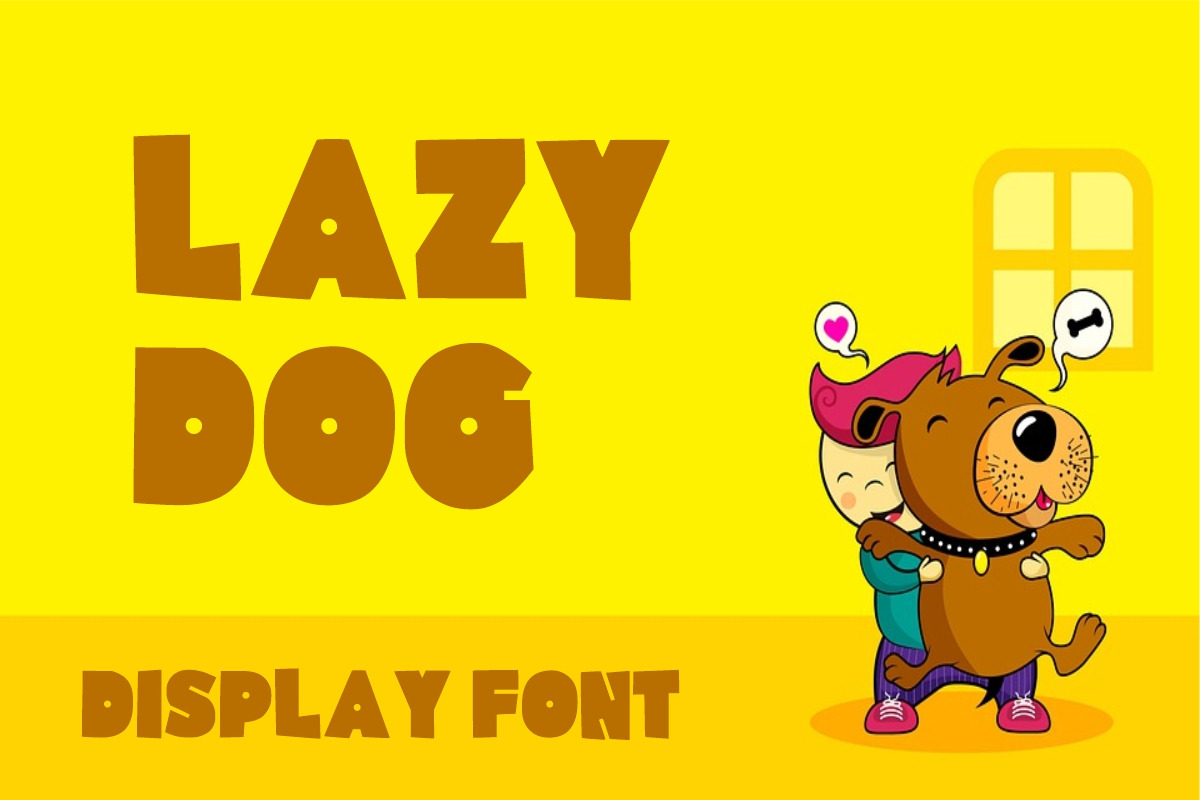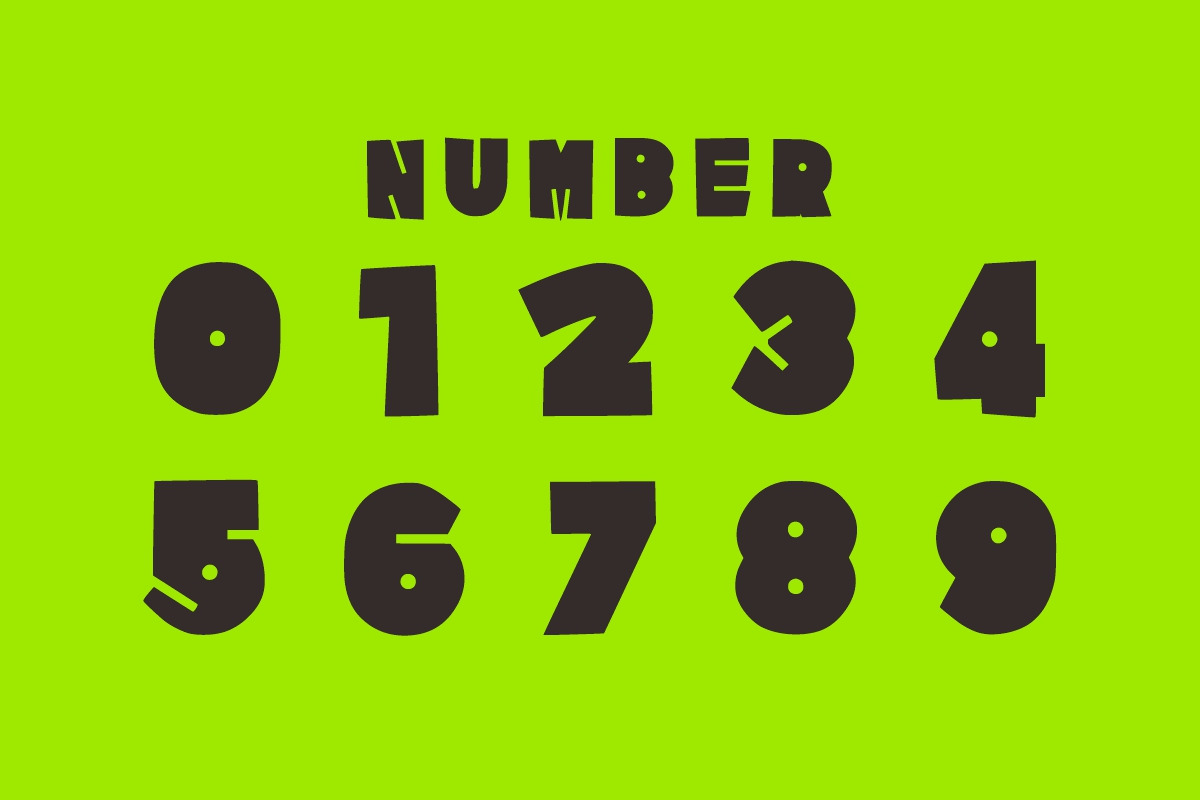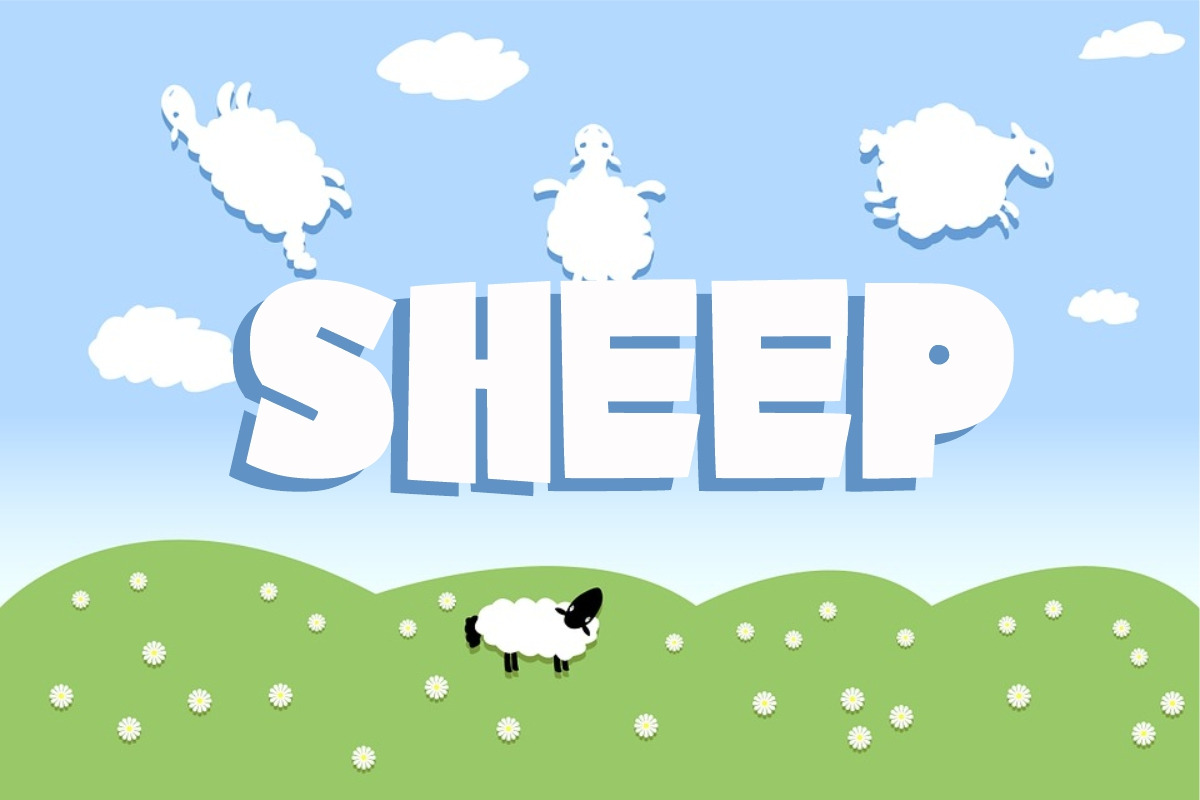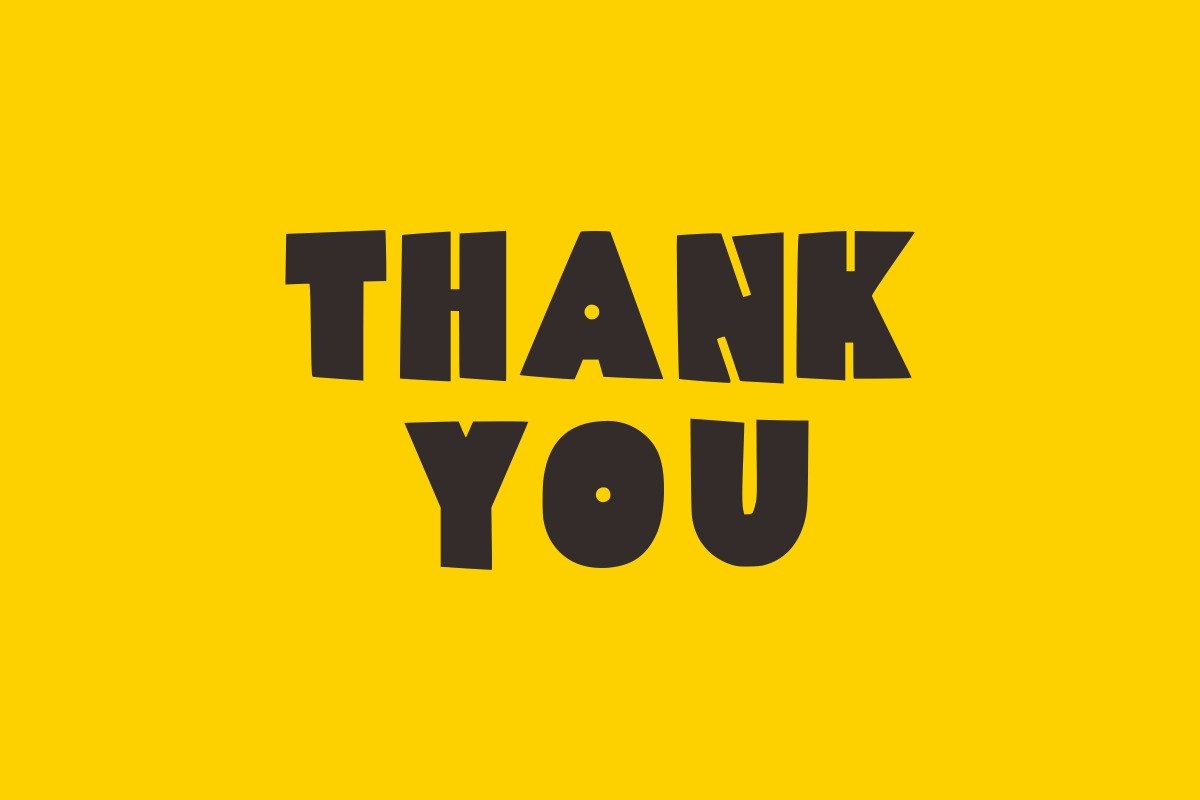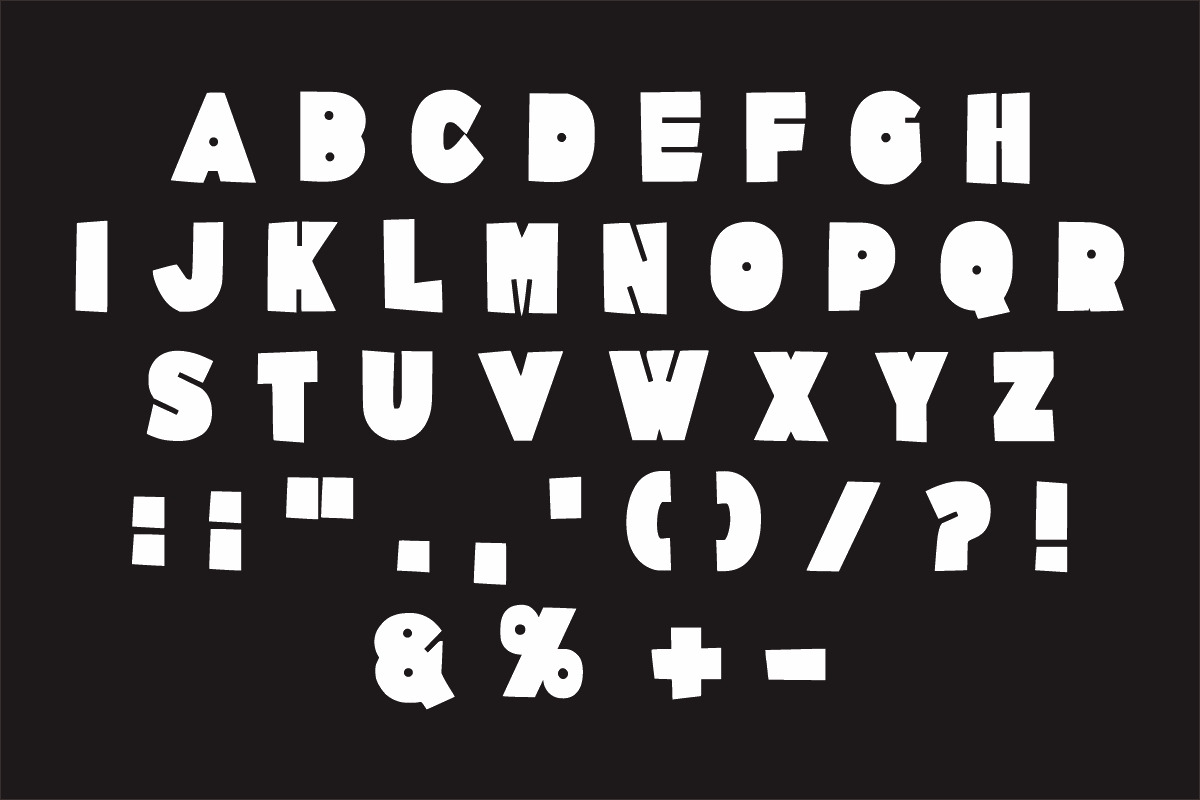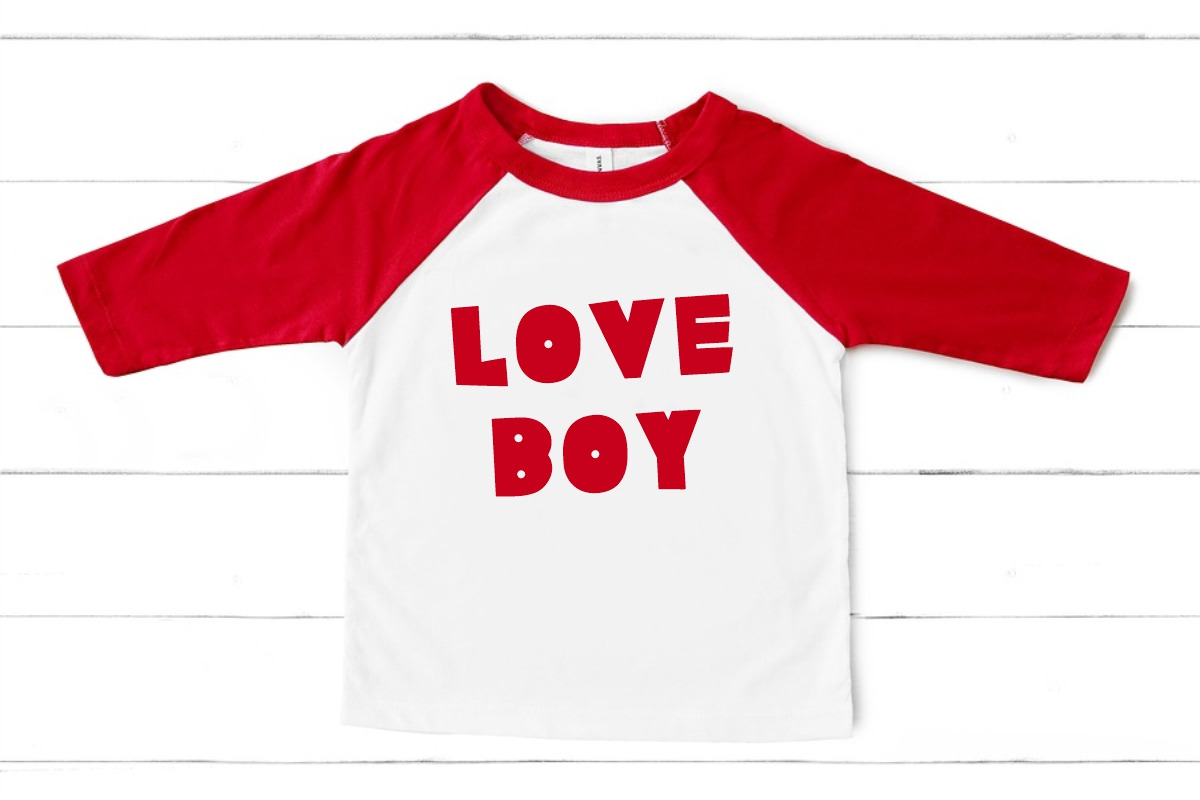
Kiddy Care
Kiddy Care is a childish, bold, and strong display font. Whether you’re using it for crafts, digital design, presentations, or making greeting cards, this font has the potential to become your favorite go-to font, no matter the occasion!